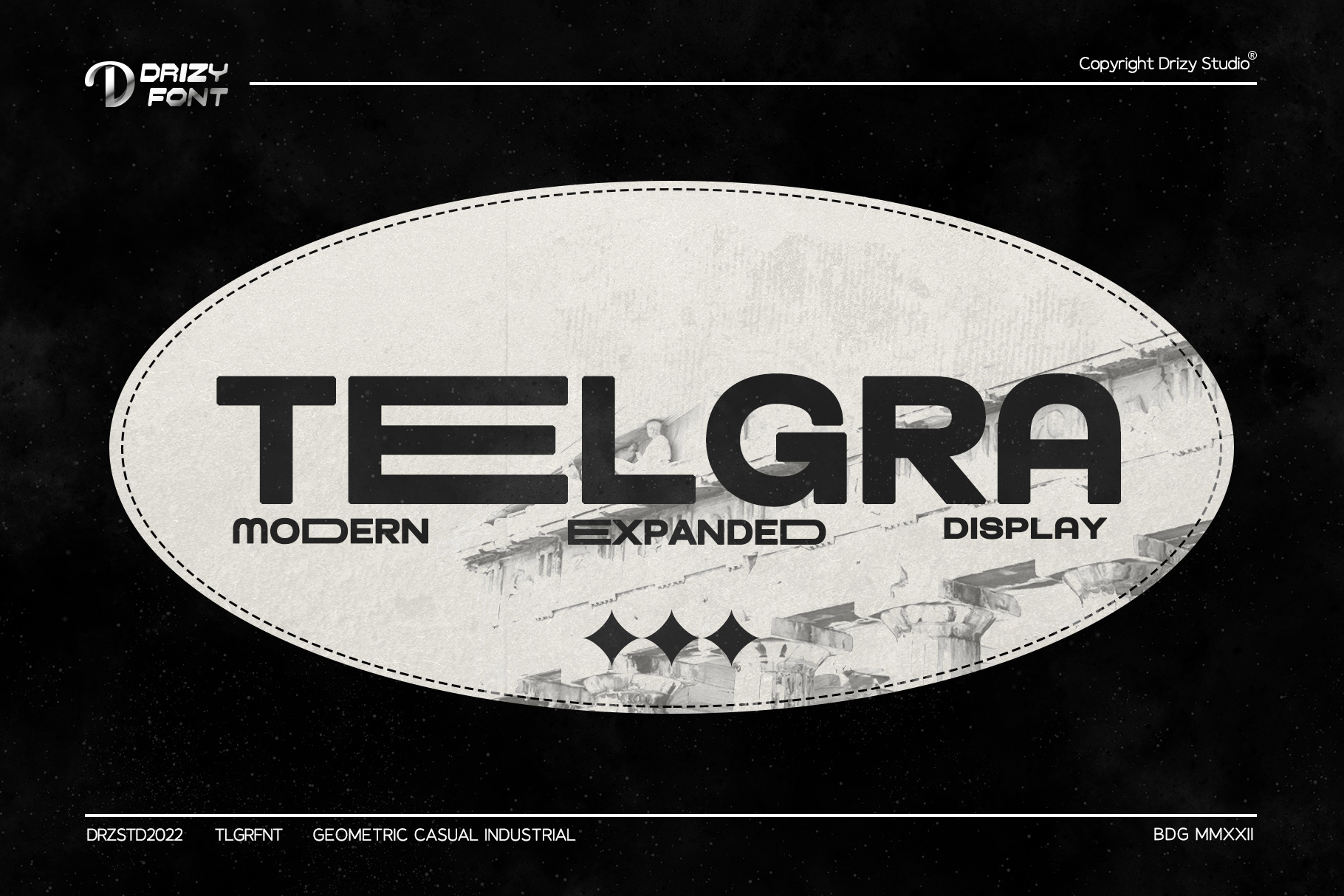
Telgra - Modern Expanded Font
Telgra – Modern Expanded Font
Telgra is a modern expanded font from Drizy studio. Offering all the basic styles you will need especially for modern theme project.
Telgra Features:
All Caps Numeral & Punctuation Multilinguals & Alternates